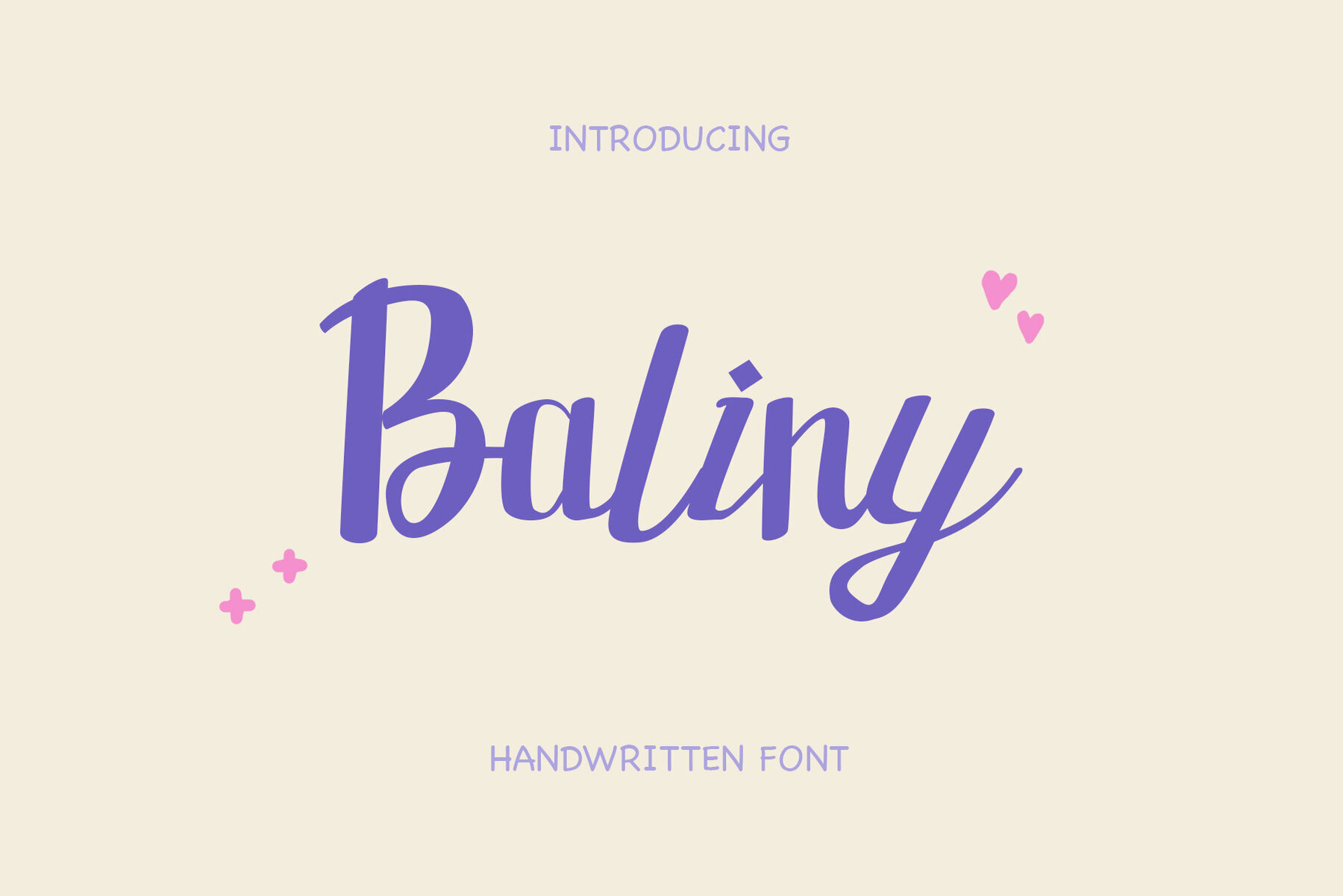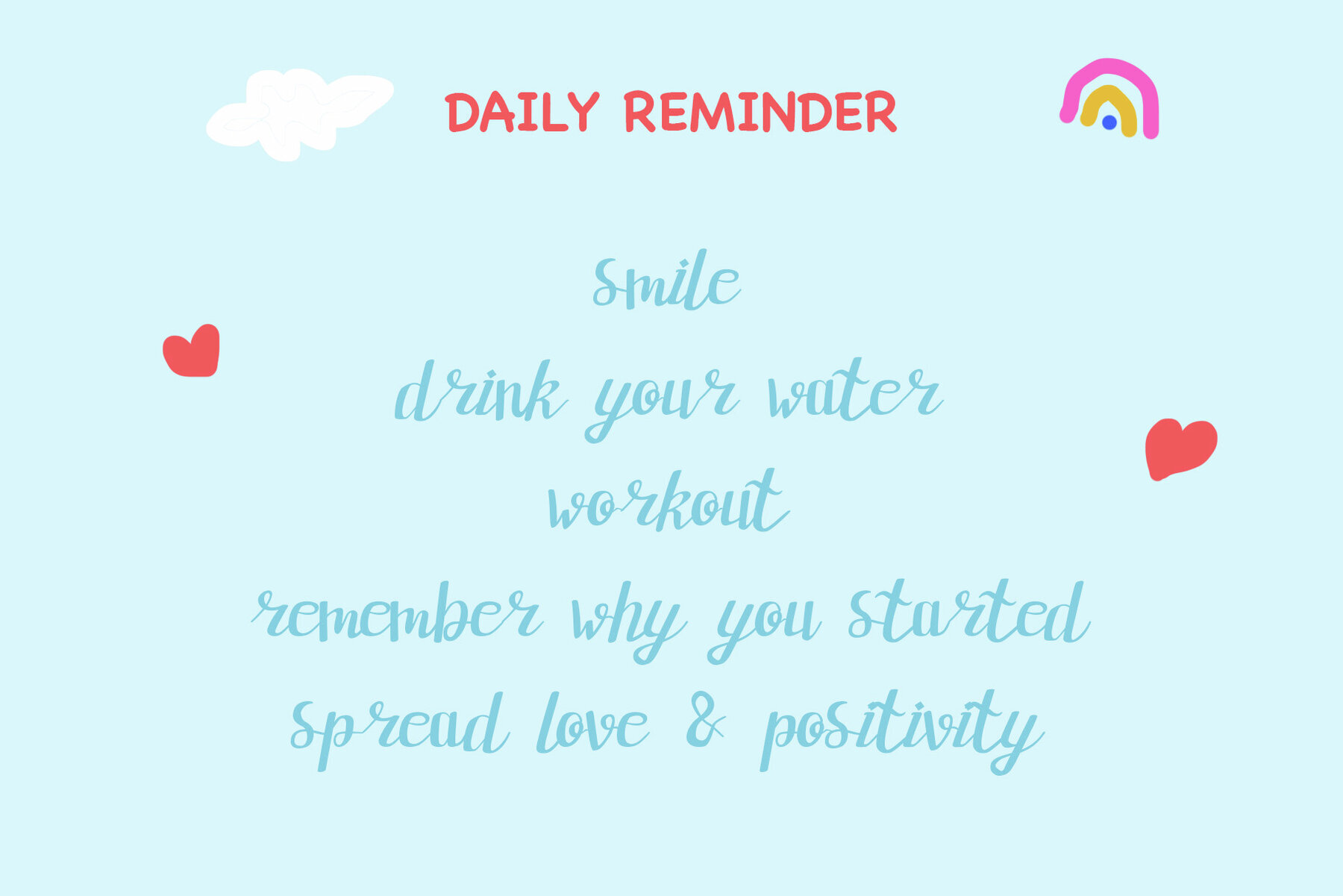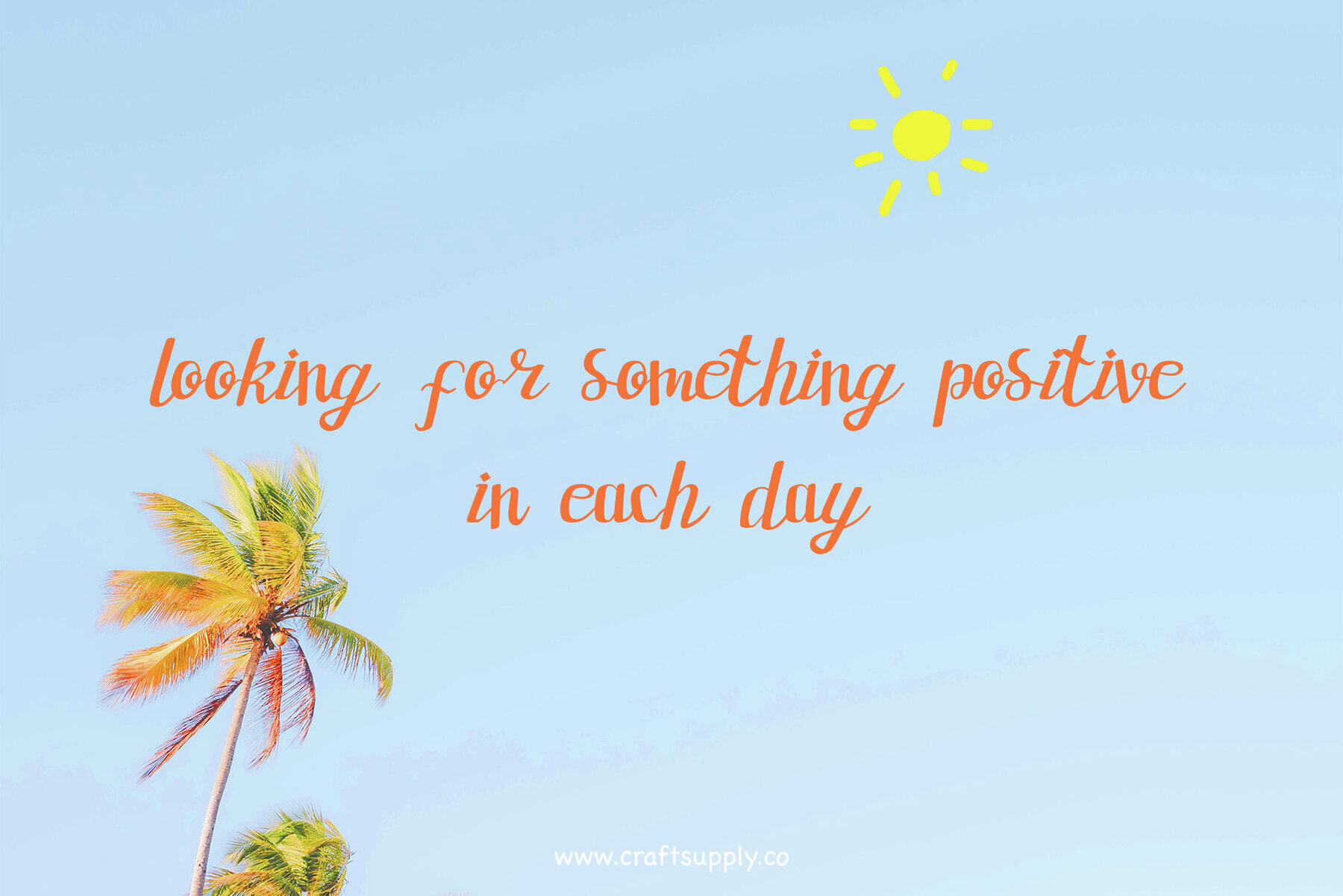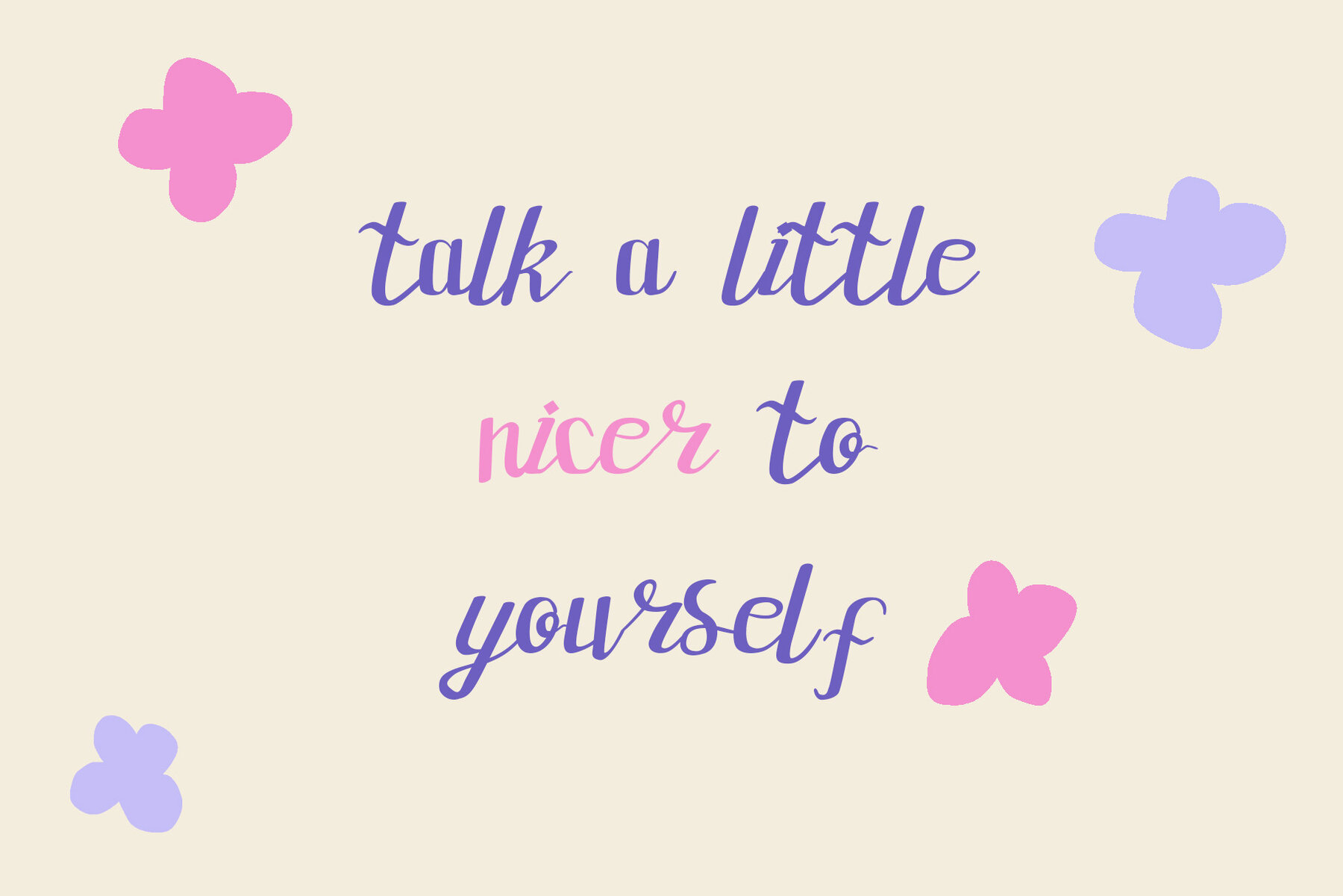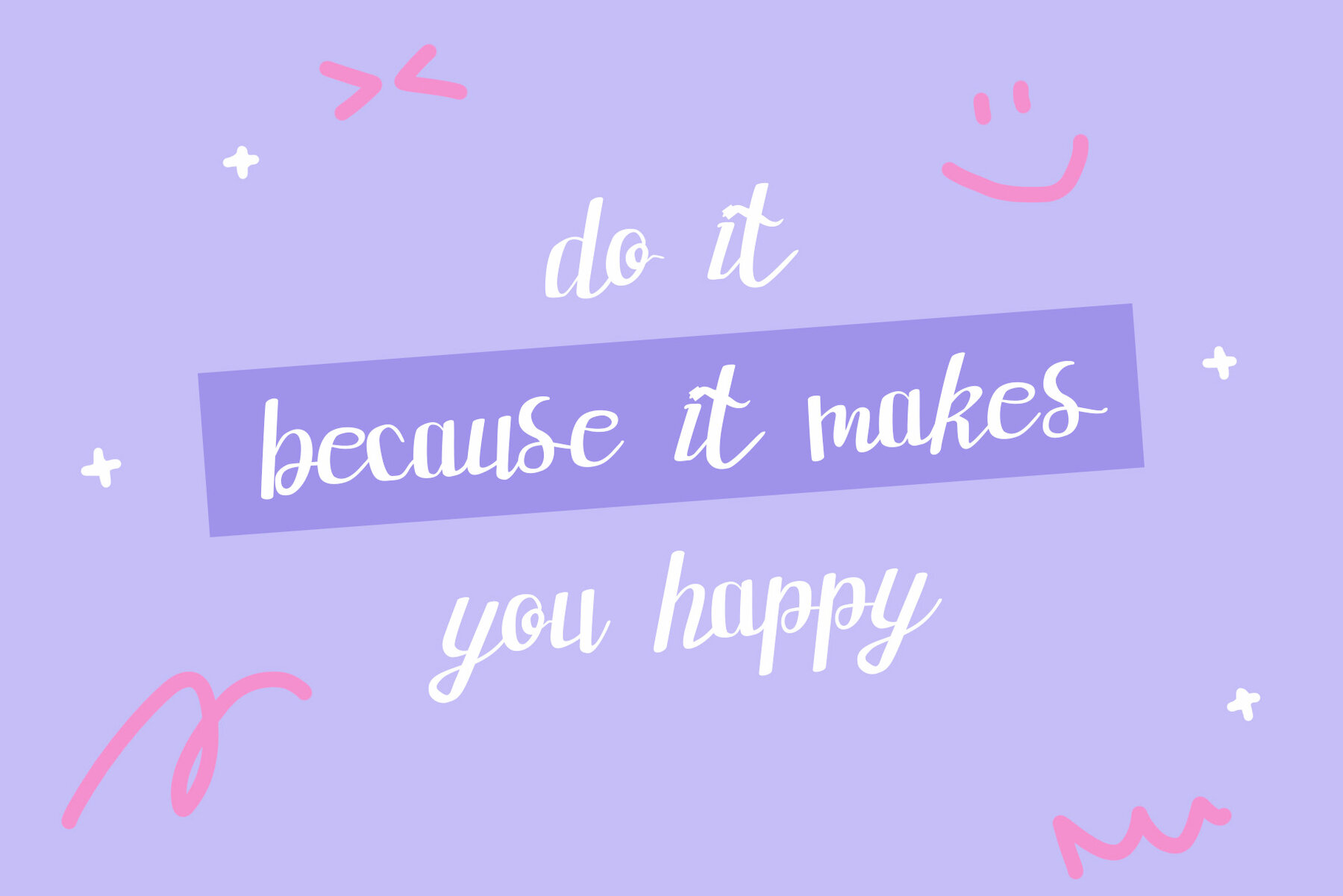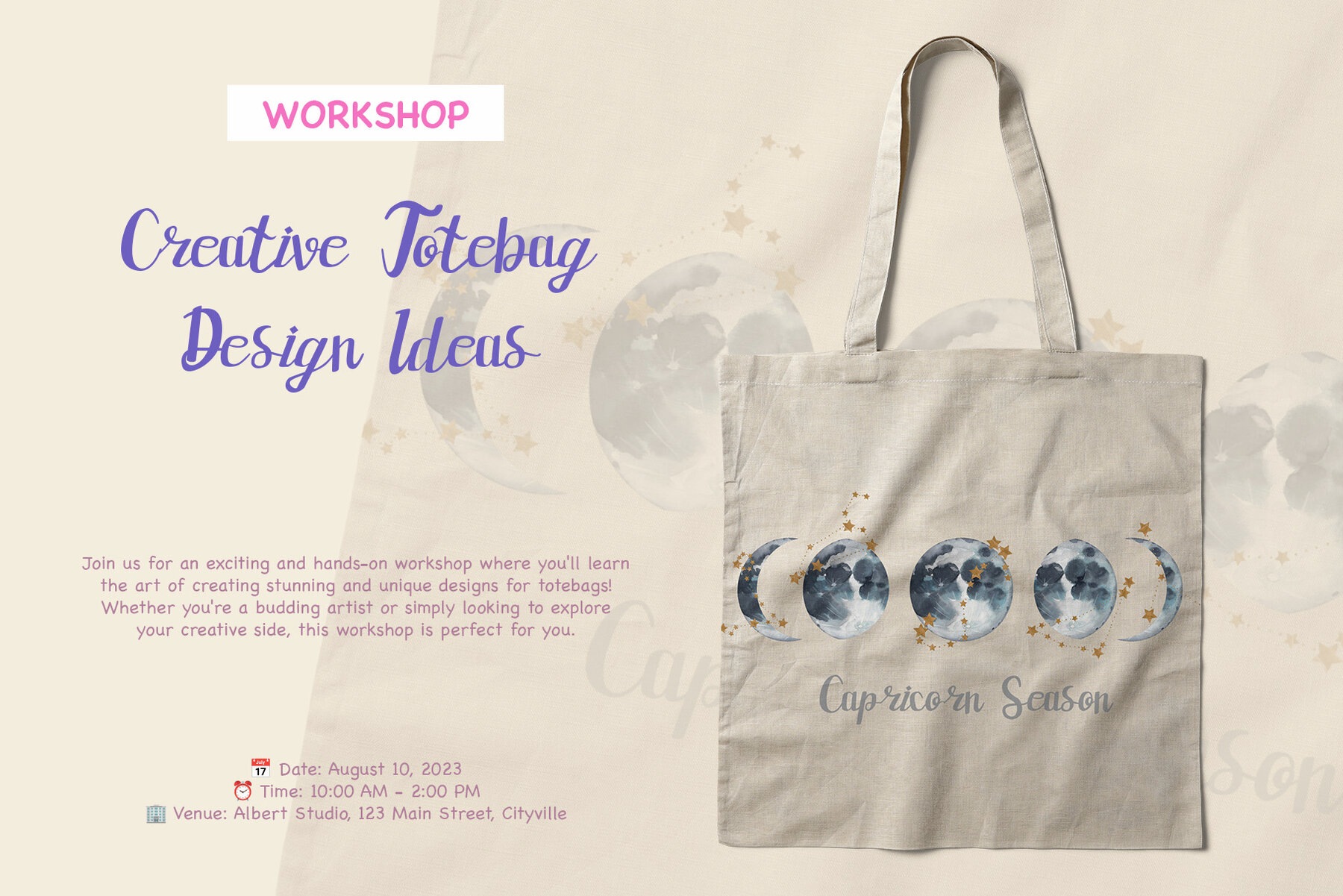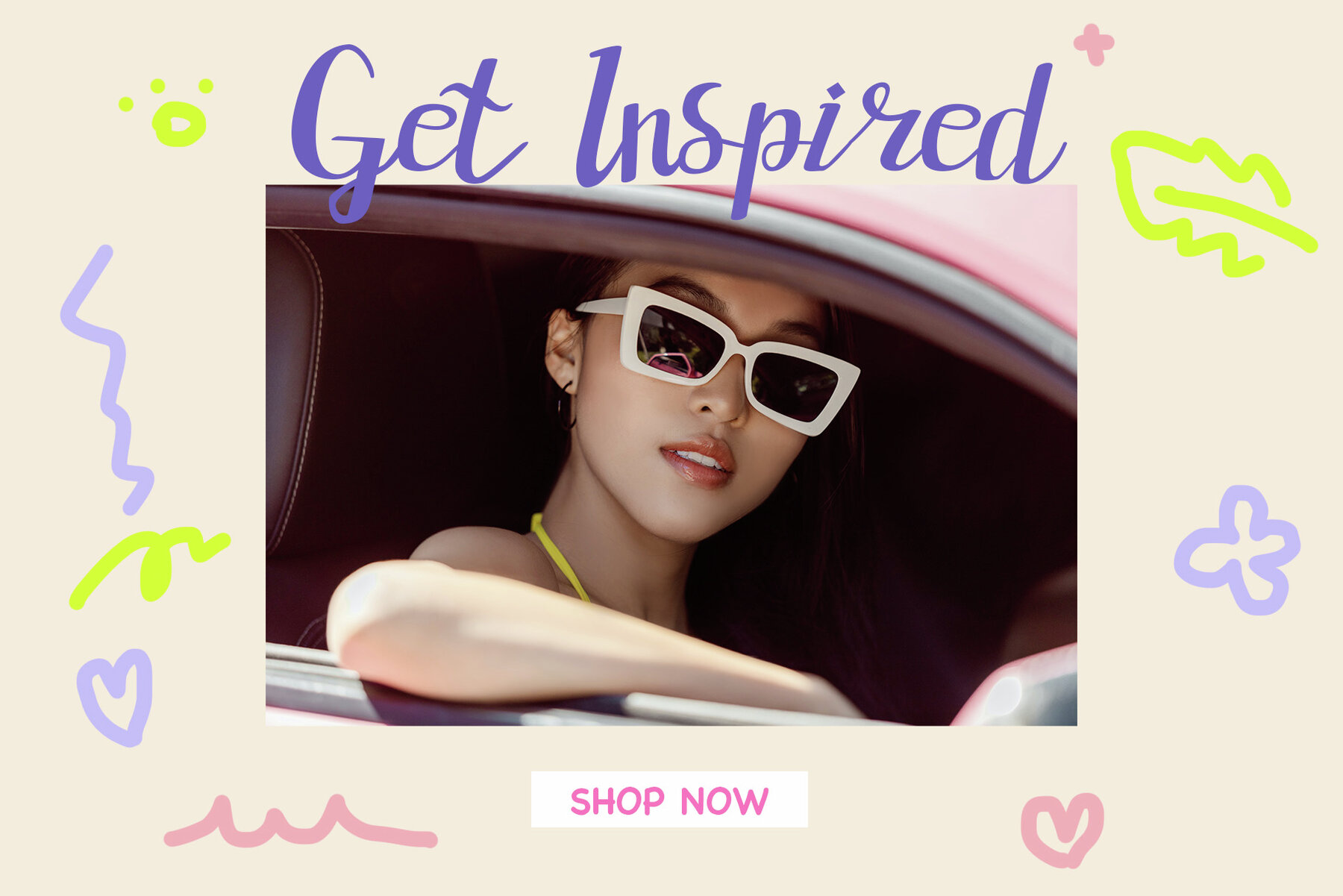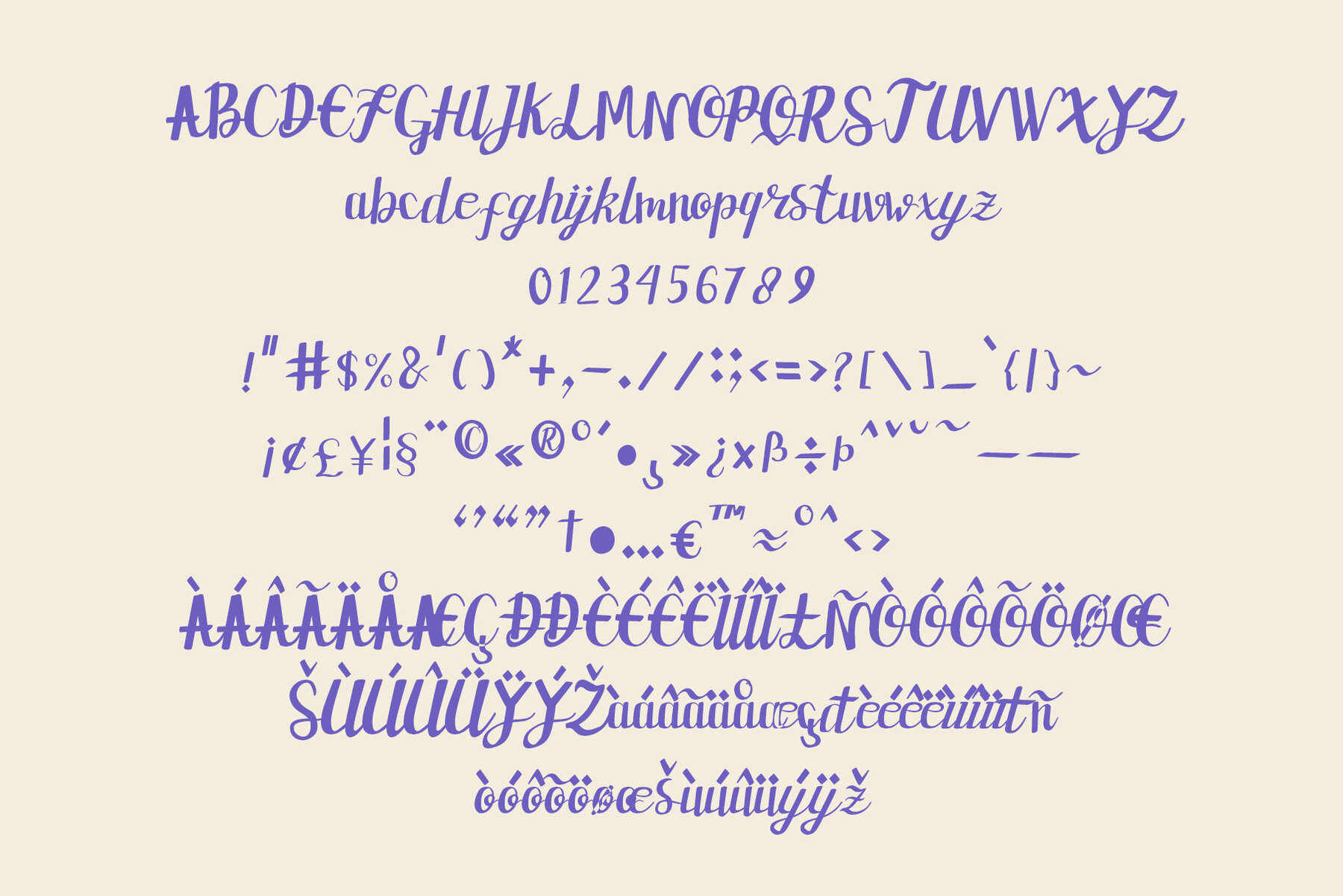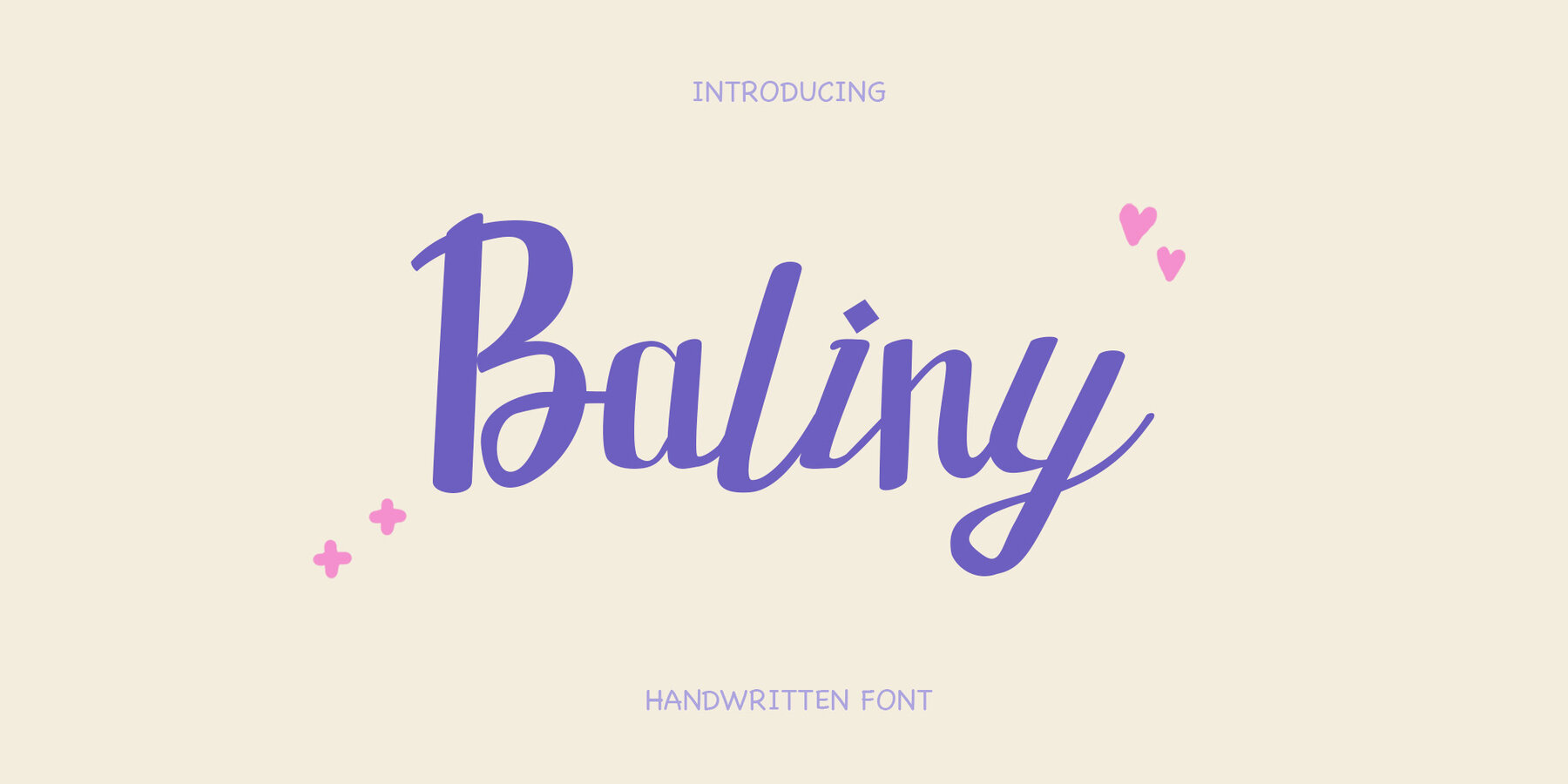
Baliny Font
Baliny Regular
Baliny, where charm and playfulness meet authentic handwritten style. This cute script font brings a natural, handcrafted feel to all your projects. This typeface is ideal for greeting card, packaging, brand identity, poster, or any purpose to make your art/design project look eye catching and trendy. Feel free to play with this typeface! What you get : Features: